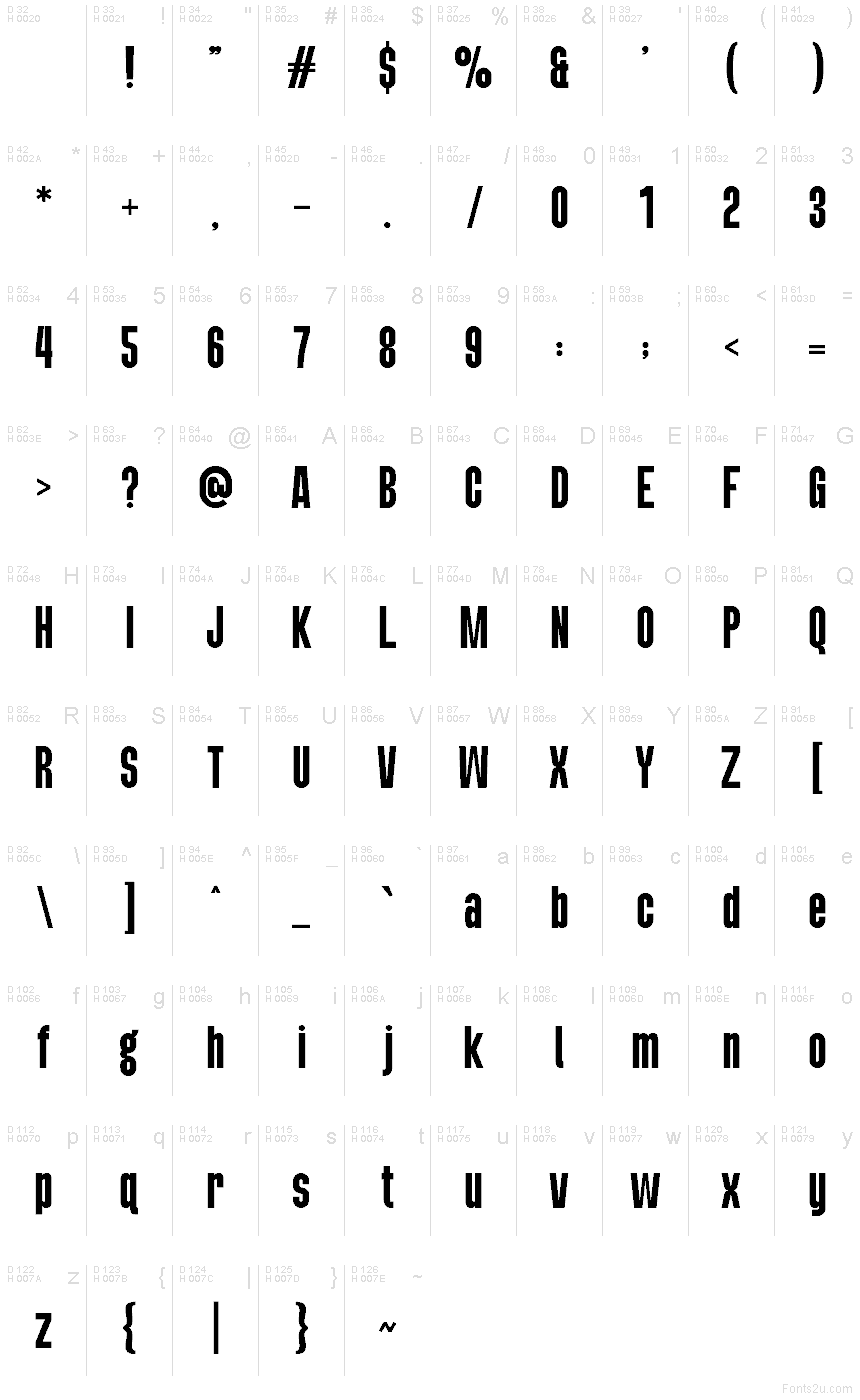
BORUINO
Boruino font by Gilang Ternadho is a modern and minimalist condensed sans serif font inspired by geometric shapes. The clean and professional characters are designed through a repetitive structure that grants this typeface a stable presence in all design projects. Explore creative ideas with this unique tool available as a free font.
Get the most out of Boruino in logo designs, digital branding, business cards, posters, magazines, and books. Try it just as well for online campaigns including social media posts when you feel like engaging your audience with simple yet effective compositions.